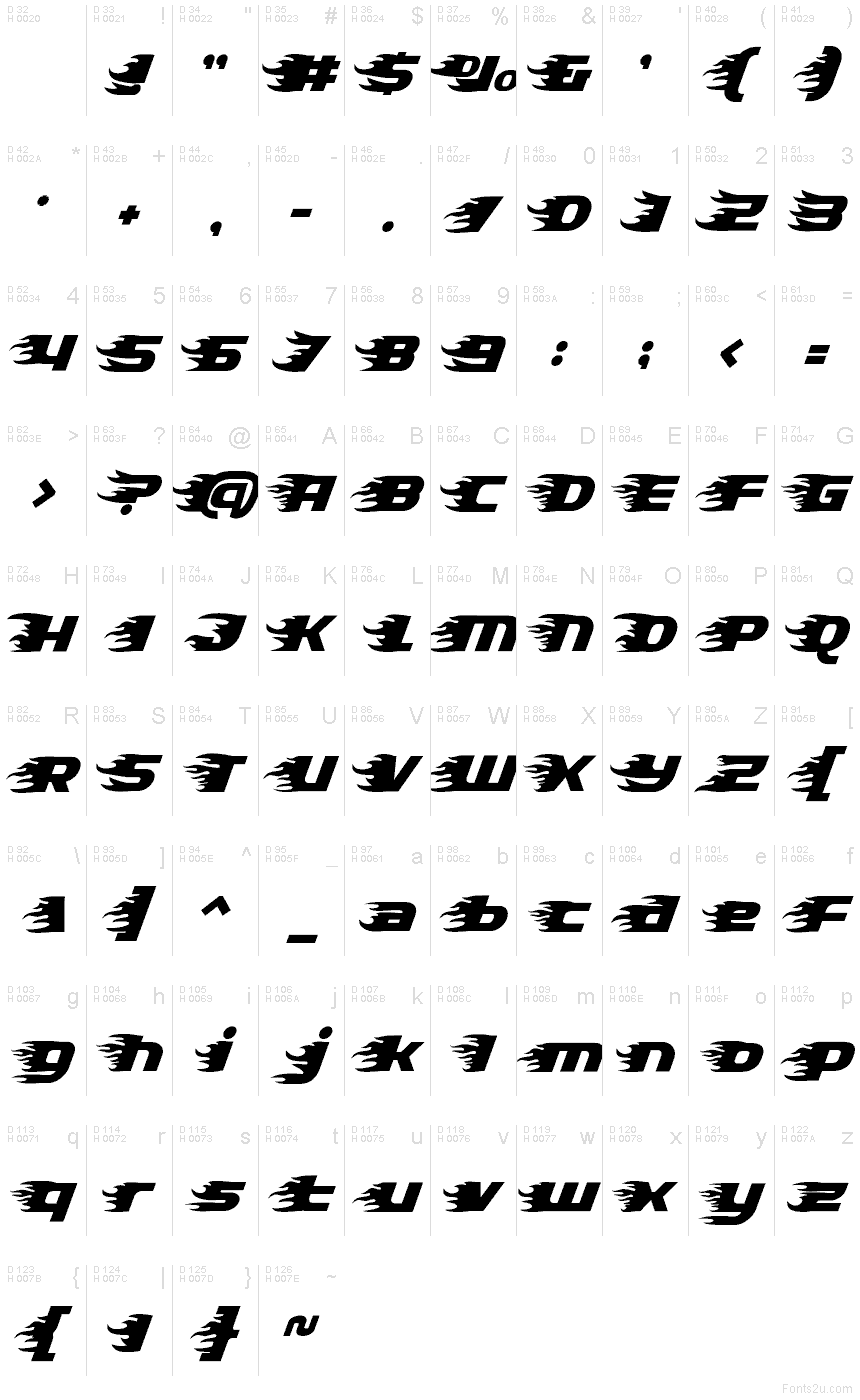
Rapido Racers Twelve
Rapido Racers Twelve font by PutraCetol Studio is a display font that embodies fast-paced rhythms and techno vibes. The font has an industrial soul and an energetic aesthetic with expanded characters in bold weight that convey a modern feel. This free techno display font also contains high-impact qualities and a certain uniqueness that will make it a widely-favored tool.
Use it for professional race driver logos, car racing clubs, automotive event brochures, blogs about the top seven most dangerous motorsport competitions, football or basketball team uniforms, car sale promotions, sneaker labels or posters promoting sports jerseys.